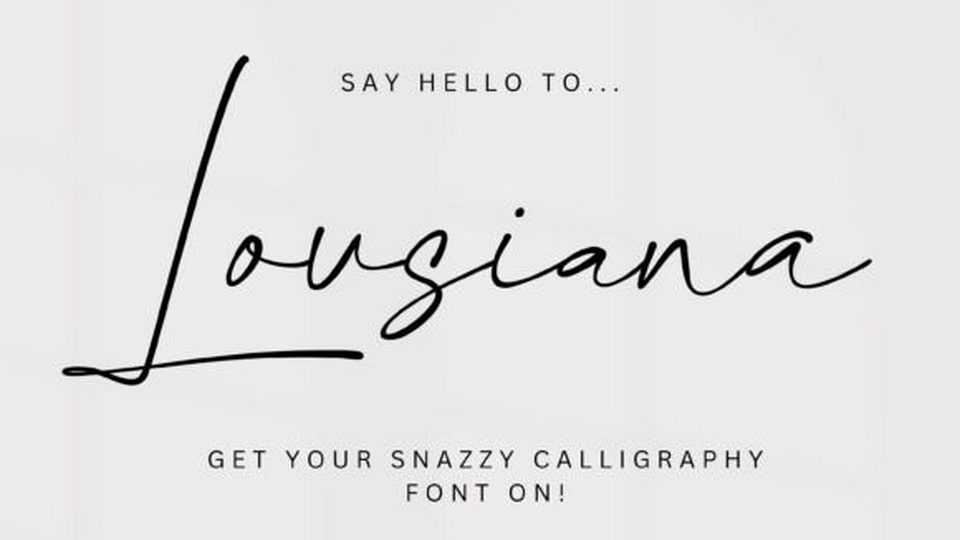
Download Lousiana font, a unique organic handwritten typeface perfect for elevating branding, adding personal touches to invitations, and enhancing product packaging.